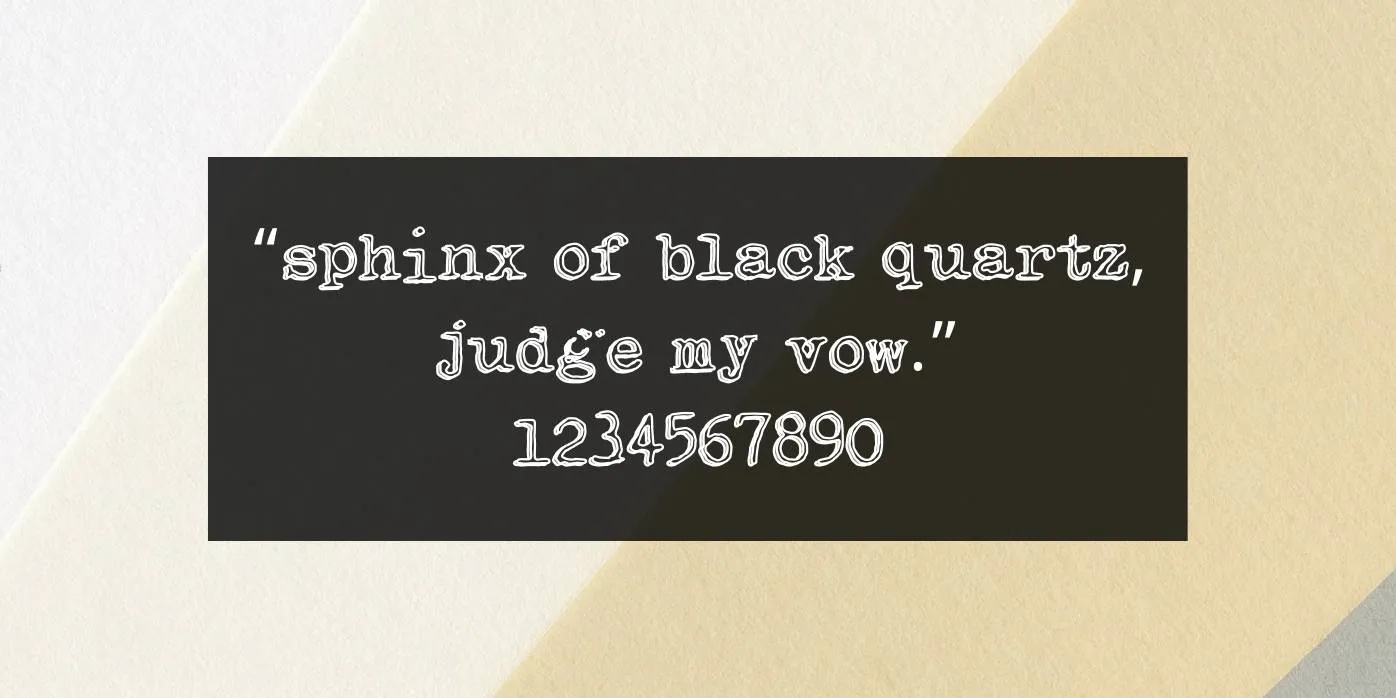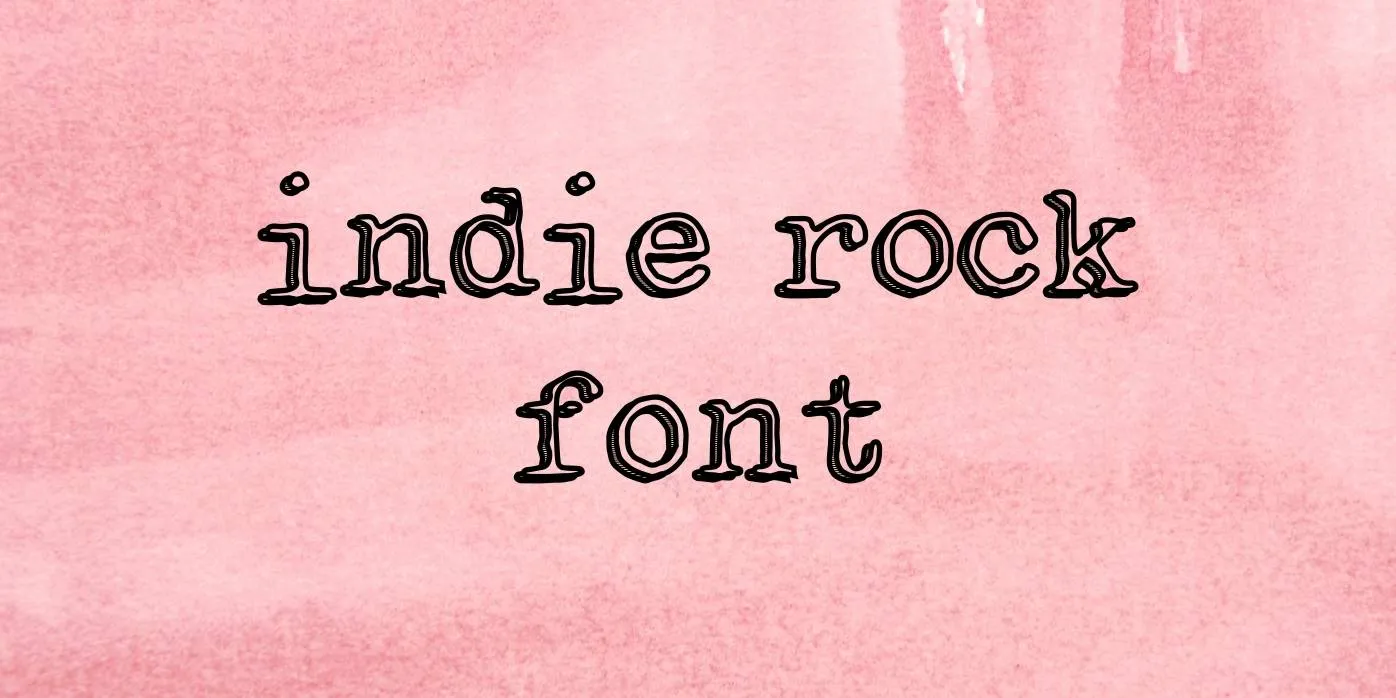
Indie Rock Font
Here, we introduce Indie Rock Font which has classic features. It belongs to the fancy family. The developer of this family was Xerographer Fonts. And it was published on 2 September 2016.
Indie Rock Typeface has unique shapes of the letters. And it is thin and light but still very visible. You can use it for various purposes such as headlines, posters, and logos. This family has different styles and weights.